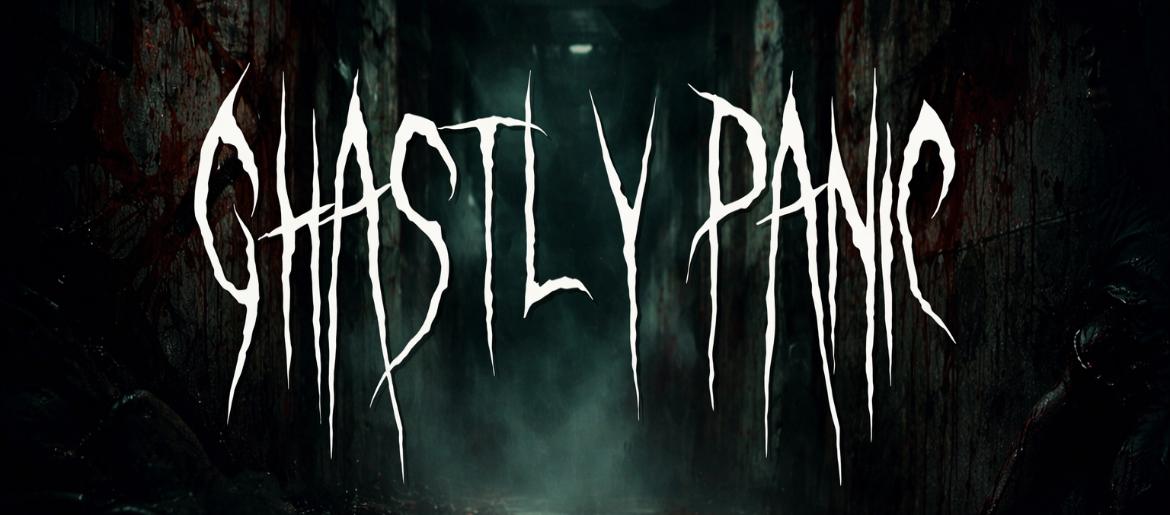
Ghastly Panic Font
Ghastly Panic Font is a hand-lettered horror display typeface created while watching the 2004 remake of Dawn of the Dead. Its rough, frantic strokes and chaotic letterforms give it a raw, spooky energy—perfect for horror posters, Halloween designs, creepy titles, and anything that needs an intense, undead vibe.
➤ Font Name: Ghastly Panic
➤ Designer: Sinister Fonts
➤ Style: Horror